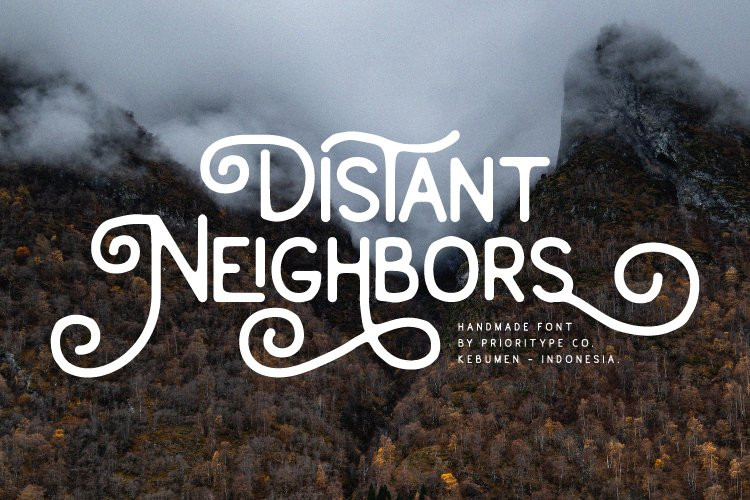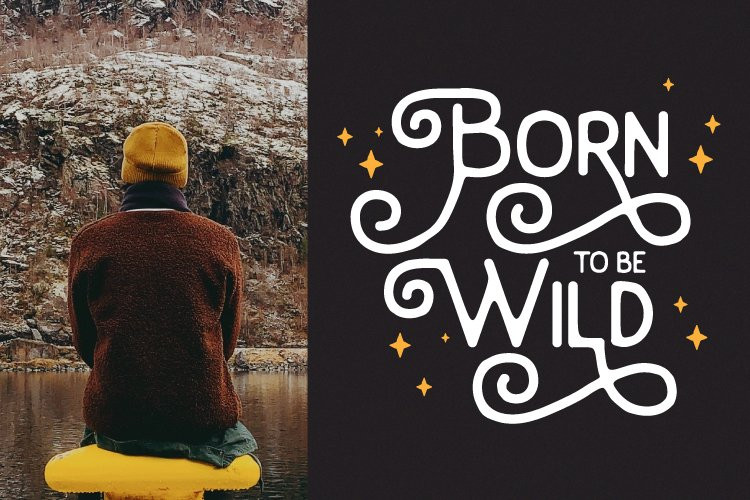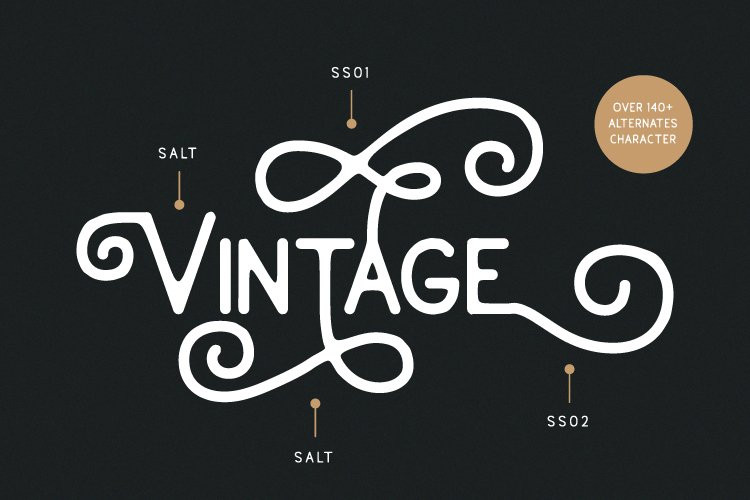
Distant Neighbors Font
Distant Neighbors FontHi all. Introducing a new typeface. Yes, say hello to “Distant Neighbors”. Monoline fonts with rough shapes are equipped with many alternative choices and interesting ligatures. Suitable for those of you who like retro or modern themed designs too.
“Distant Neighbors” is suitable for designs such as posters, logos, merchandise, covers or even branding.